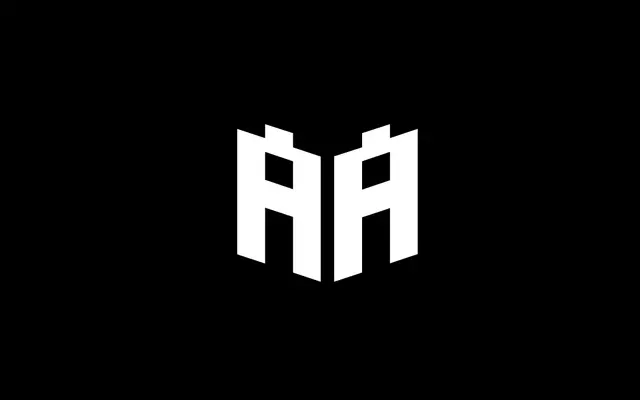
A display typeface from A Type of Amigo, its name referencing the standing stones of prehistoric Europe.
Named after the monolithic standing stones of prehistoric Europe, Menhir suggests a typeface with a bold, upright presence suited to display settings. Minimal information is available from the page, but the name points toward a design with weight and solidity. It sits within A Type of Amigo's catalogue of expressive, design-led type.
The name Menhir evokes monolithic, prehistoric stone forms; with minimal page content available, a display serif classification is inferred from the foundry's typical output and the name's connotations of bold, upright letterforms.